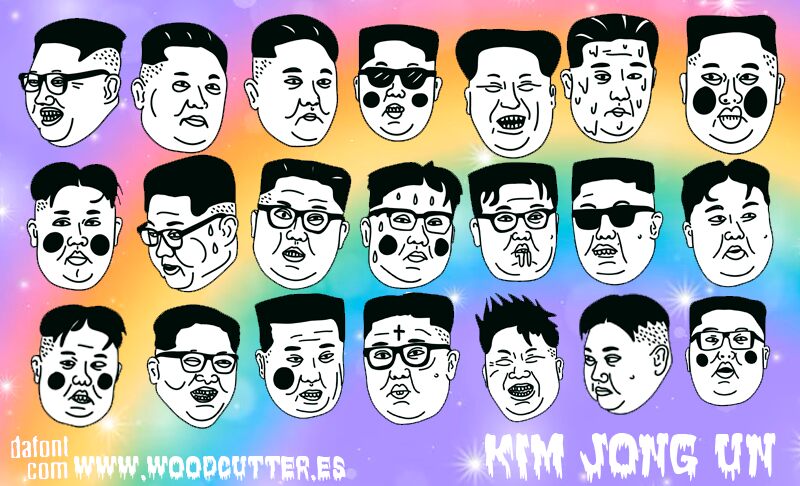
Kim Jong Un font by Woodcutter is a quirky dingbats font with an amusing design inspired by the controversial North Korean politician, Kim Jong Un. The collection of cartoonish portraits of Kim makes this resource easily recognizable yet playful enough to be suitable for kids-focused projects and audiences. Kim’s drawings are chubby, sometimes happy, and sometimes mad.
Kim Jong Un is available for free; try it in projects such as posters, stickers, social media posts, and art covers on web or print. Go a step further with animations using the simple monochrome elements in the fonts that you can edit digitally as you wish!